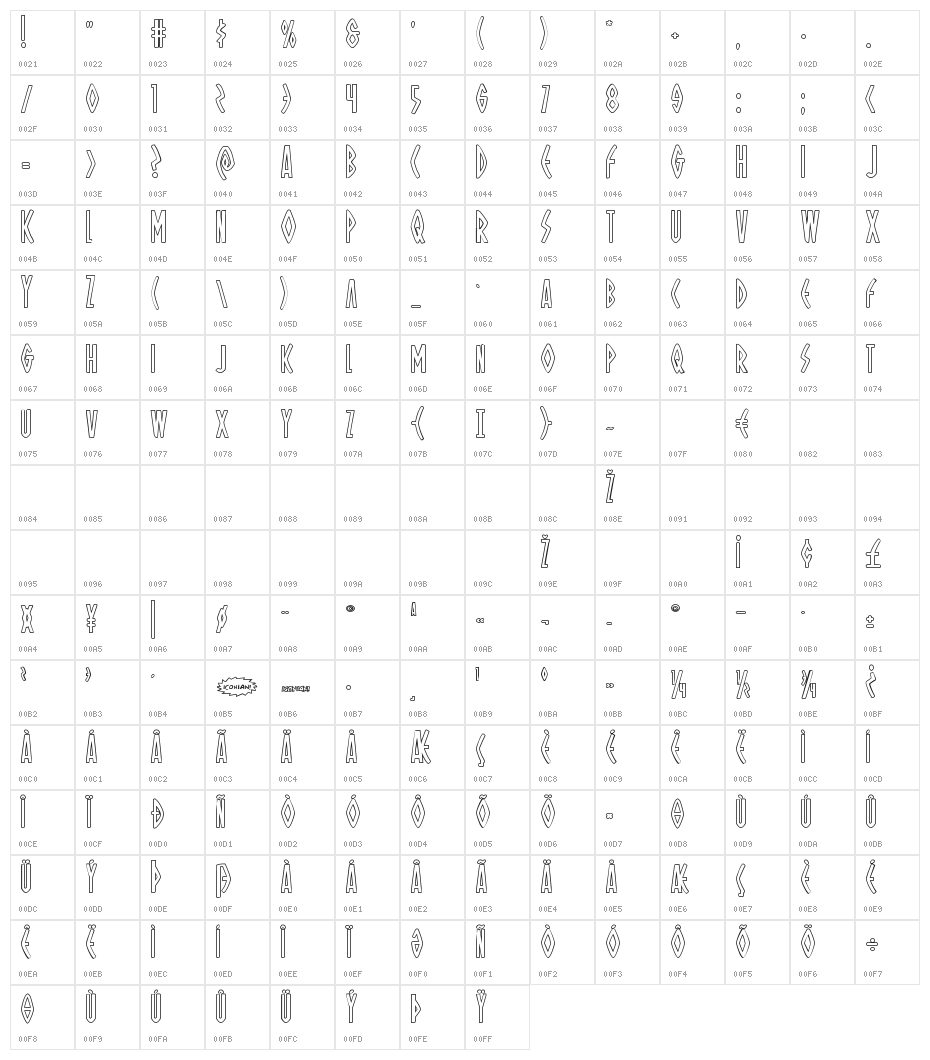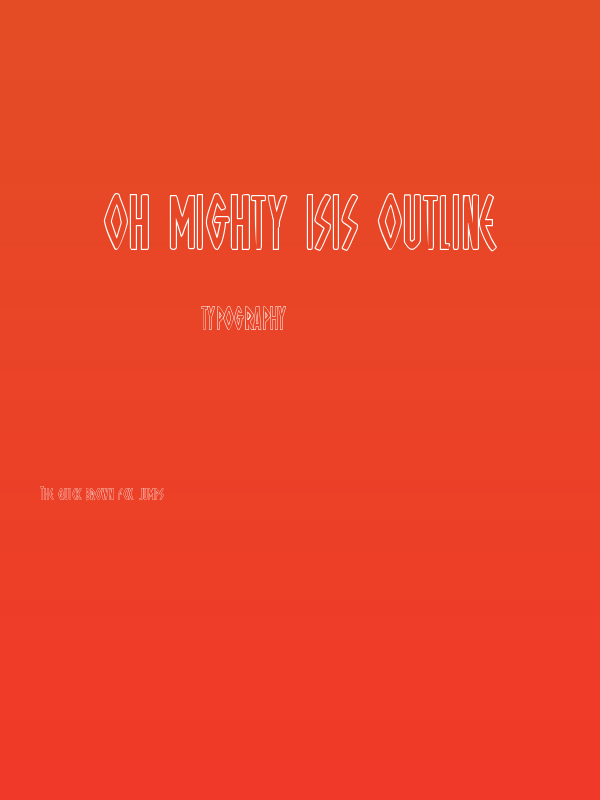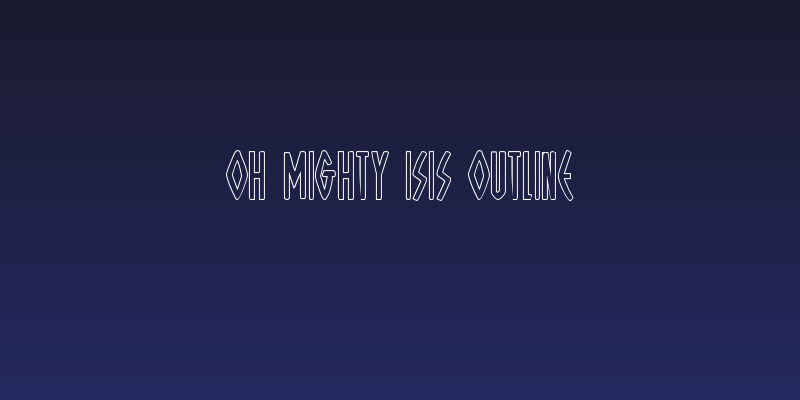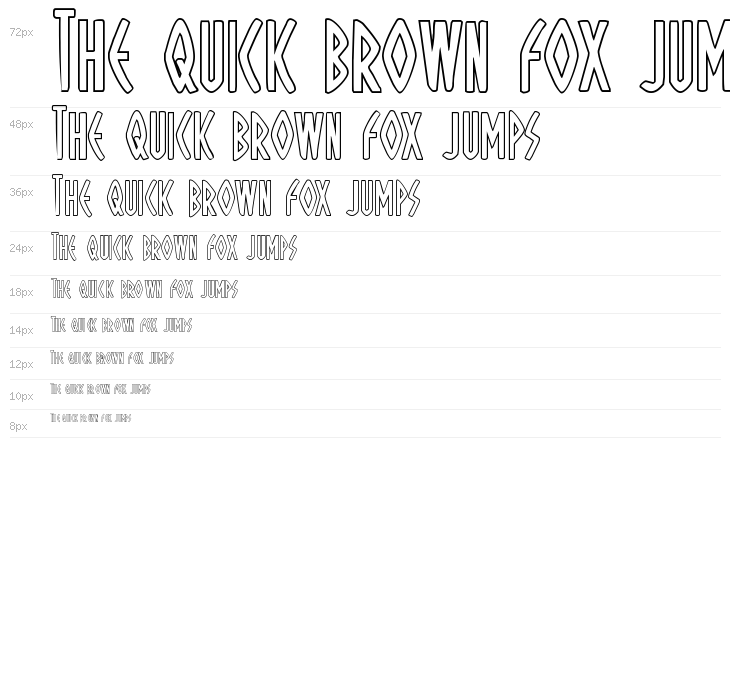
Oh Mighty Isis Outline Font
Oh Mighty Isis Outline Description
This font features a bold, geometric style with an outline design that gives it a striking and modern appearance. The characters are tall and narrow, with sharp angles and clean lines that create a sense of movement and energy. The uppercase and lowercase letters maintain a consistent height, while the numbers and special characters complement the overall aesthetic. This font's unique outline style makes it stand out, making it ideal for eye-catching designs.
| Proposed Projects | Ideal for posters, logos, and headlines where a bold statement is needed. |